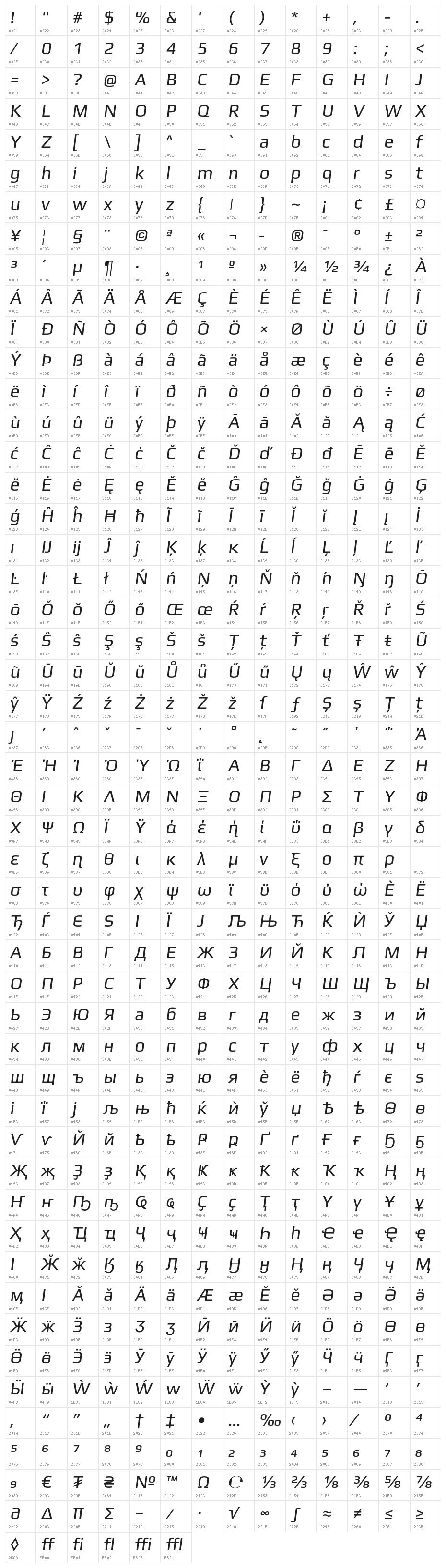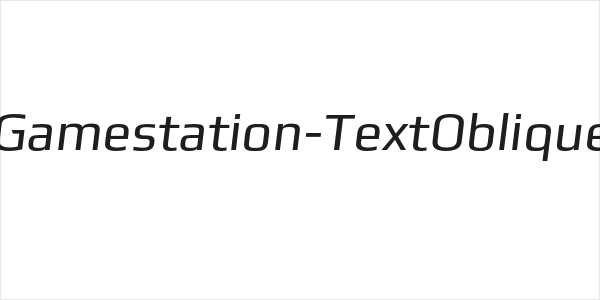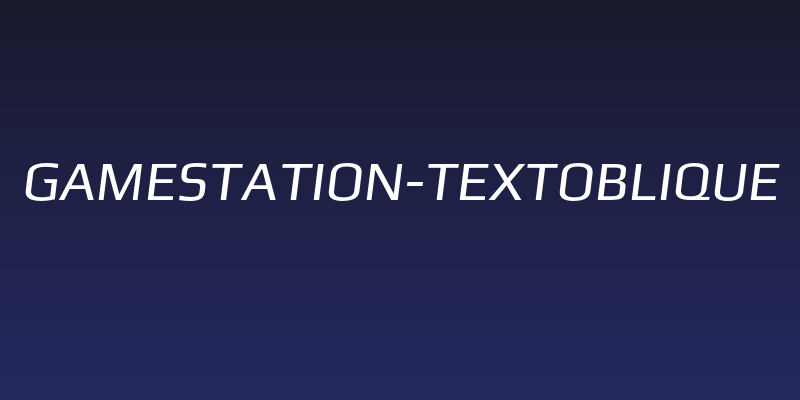
Gamestation-TextOblique Font
Gamestation-TextOblique Description
This font features a sleek, modern design with a slight oblique slant, giving it a dynamic and forward-moving appearance. The characters are clean and sans-serif, offering a contemporary look that is both professional and approachable. The uniform stroke width provides a consistent and balanced feel, while the slightly condensed letterforms enhance readability and space efficiency. This font is versatile, suitable for both digital and print media, and works well in various sizes. Its geometric structure and minimalistic style make it ideal for projects that require a modern and clean aesthetic.
| Proposed Projects | Ideal for tech branding, modern websites, digital interfaces, and sleek print materials. |